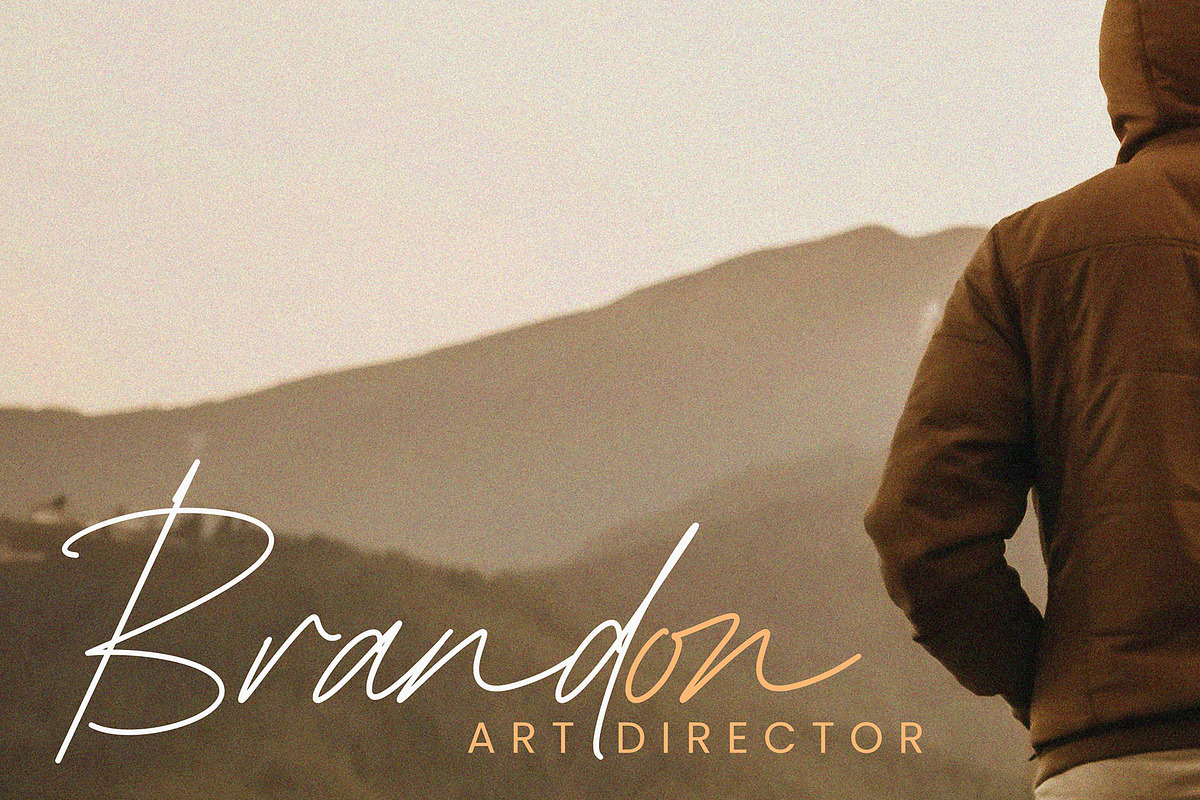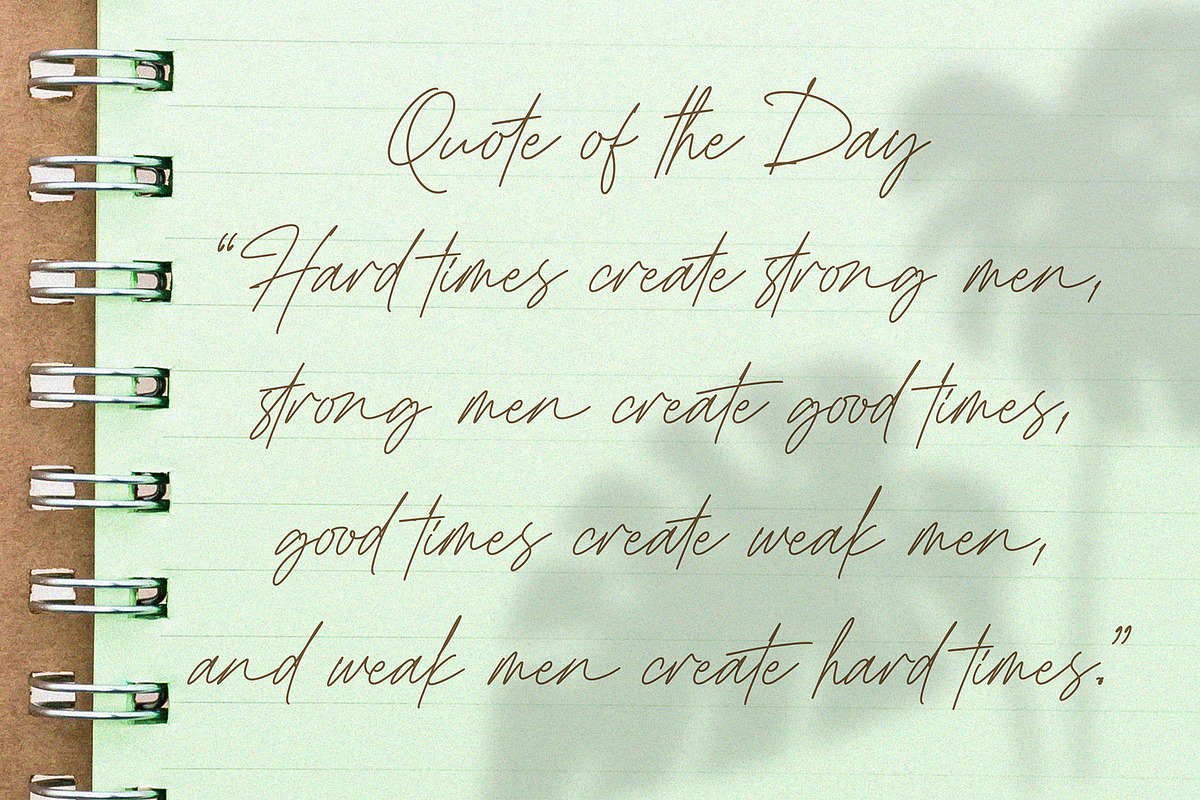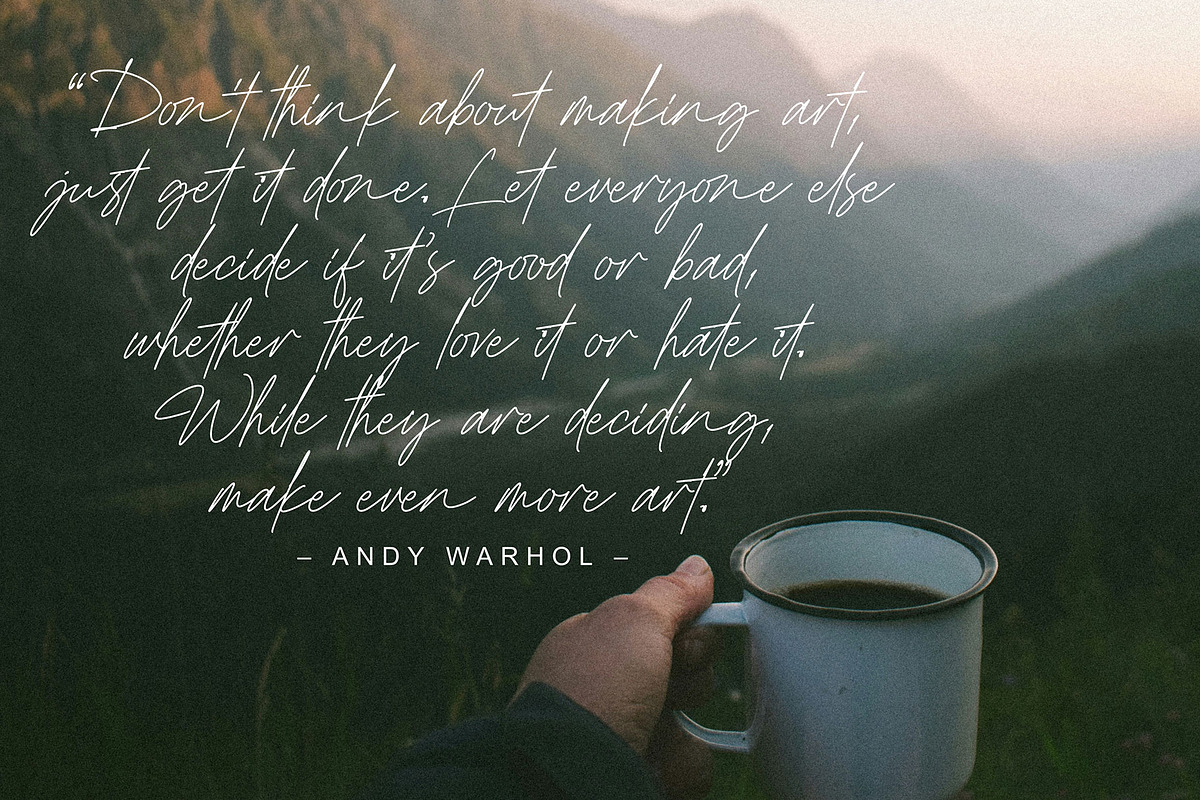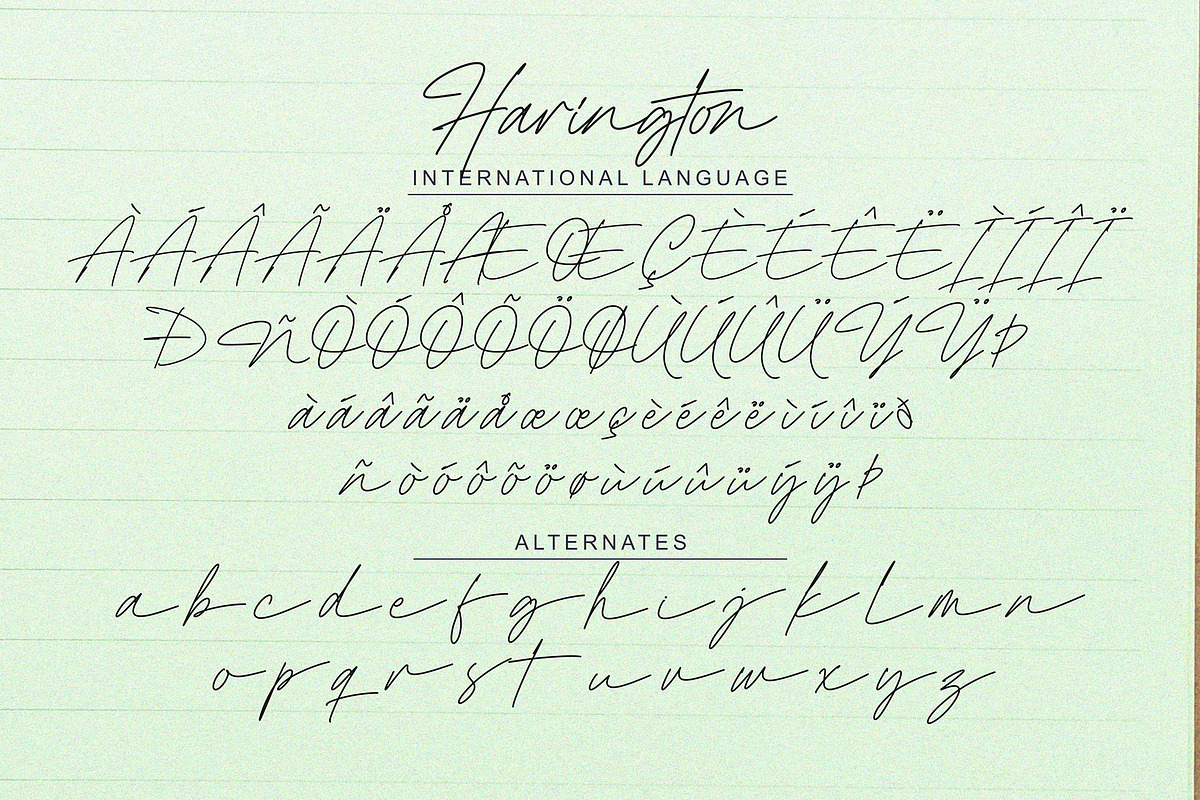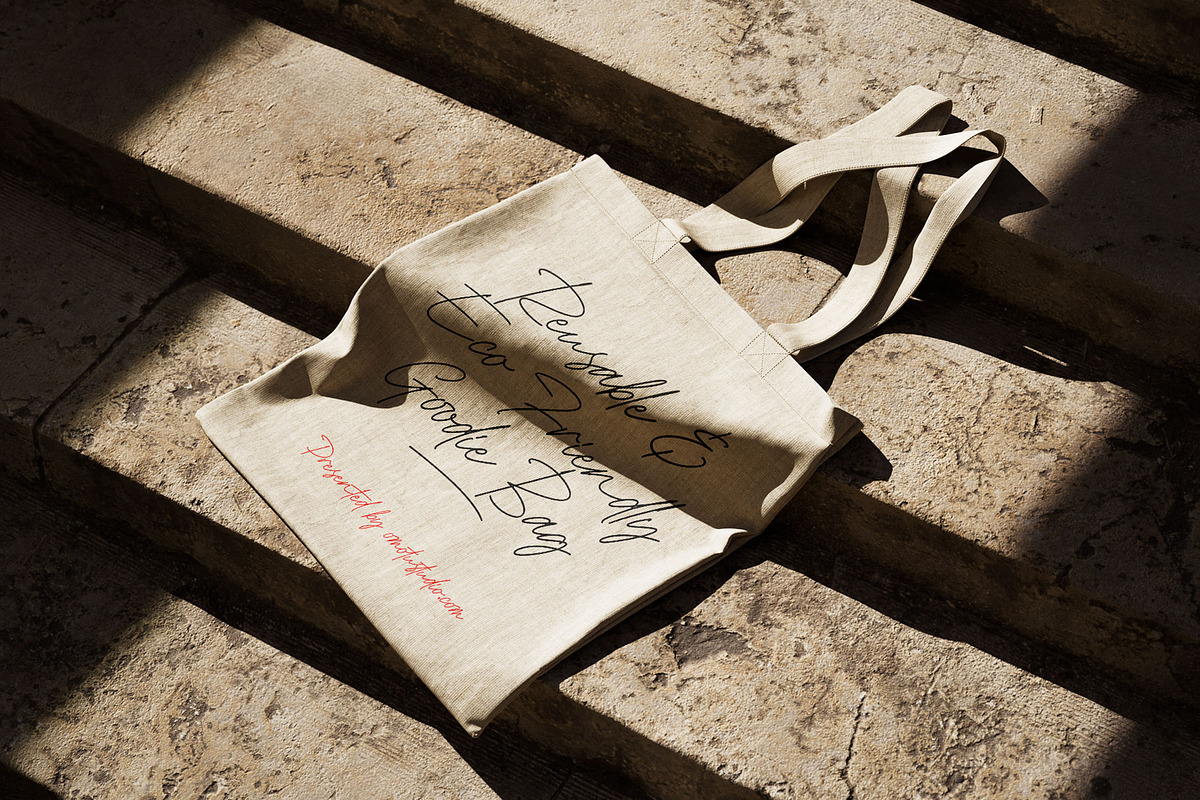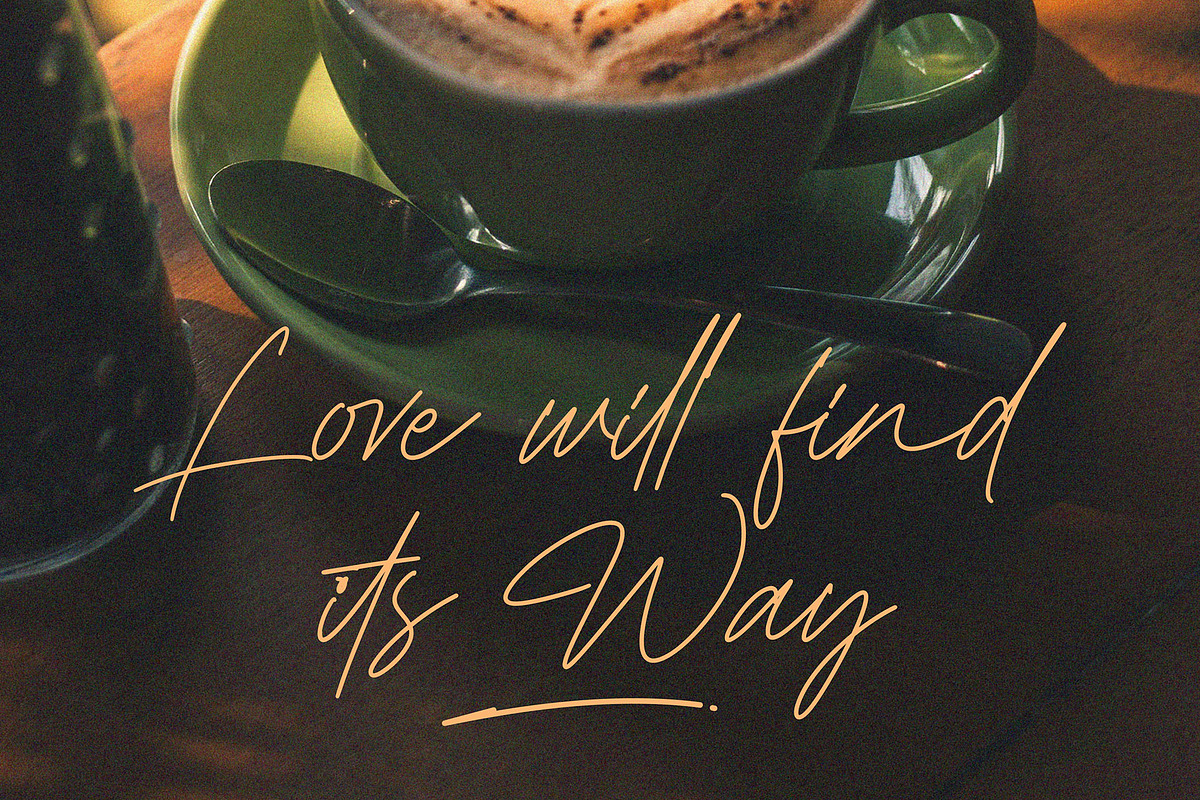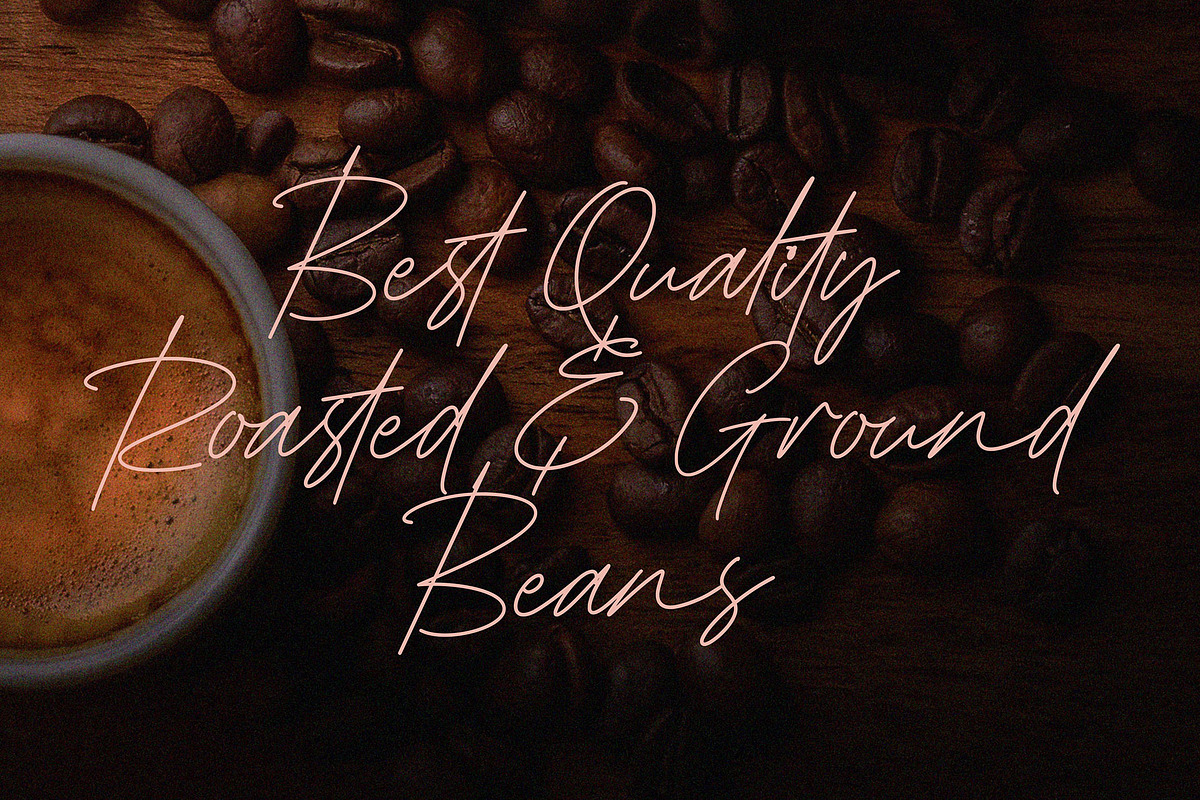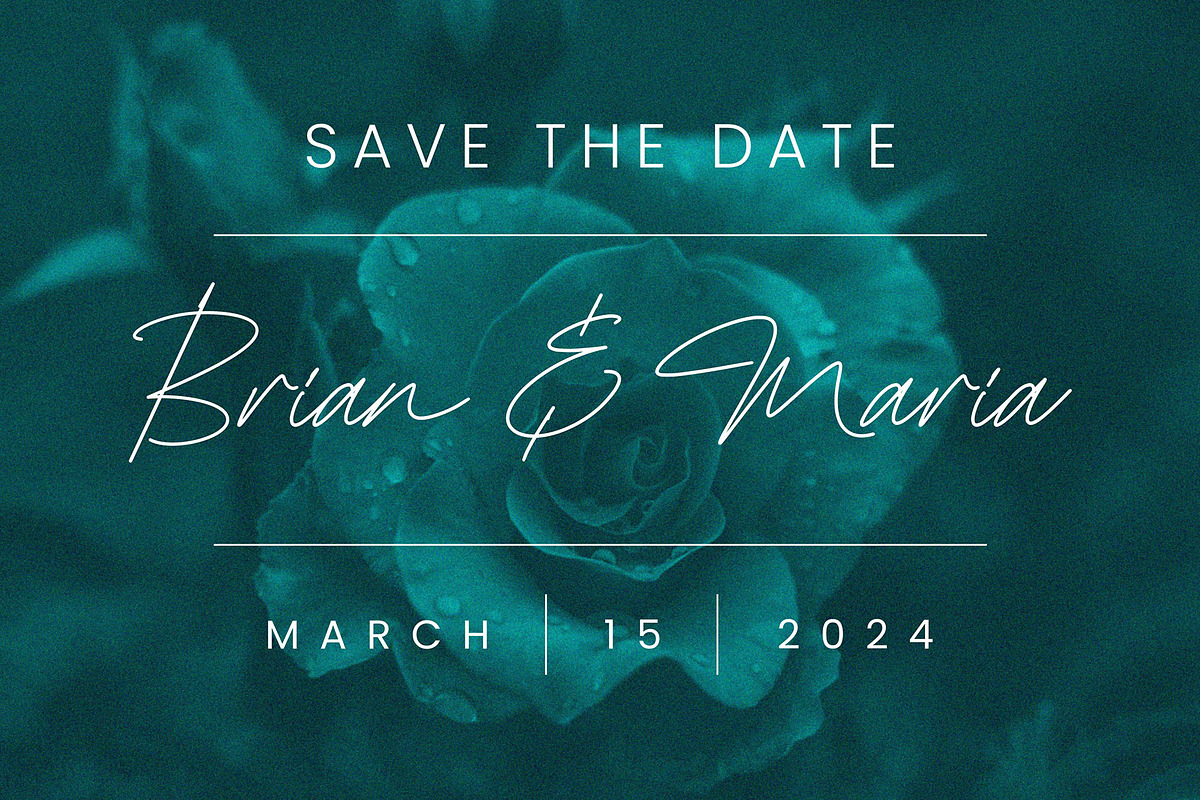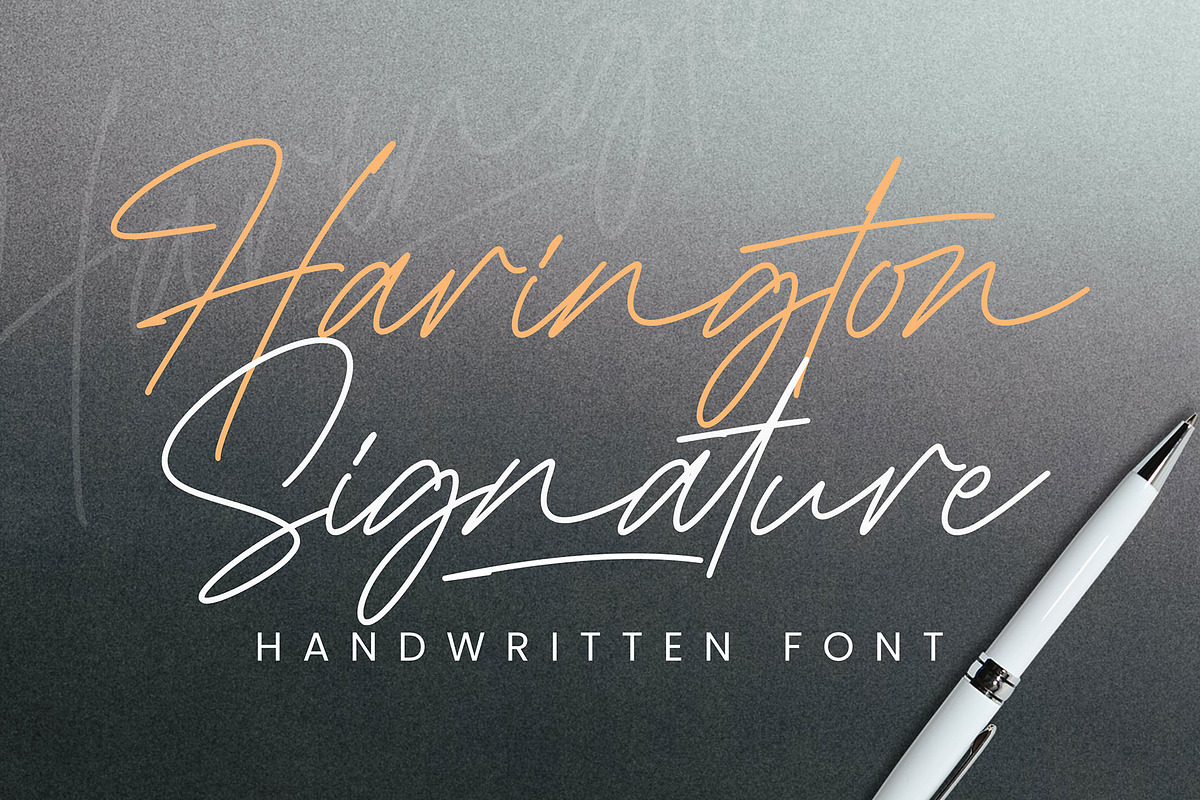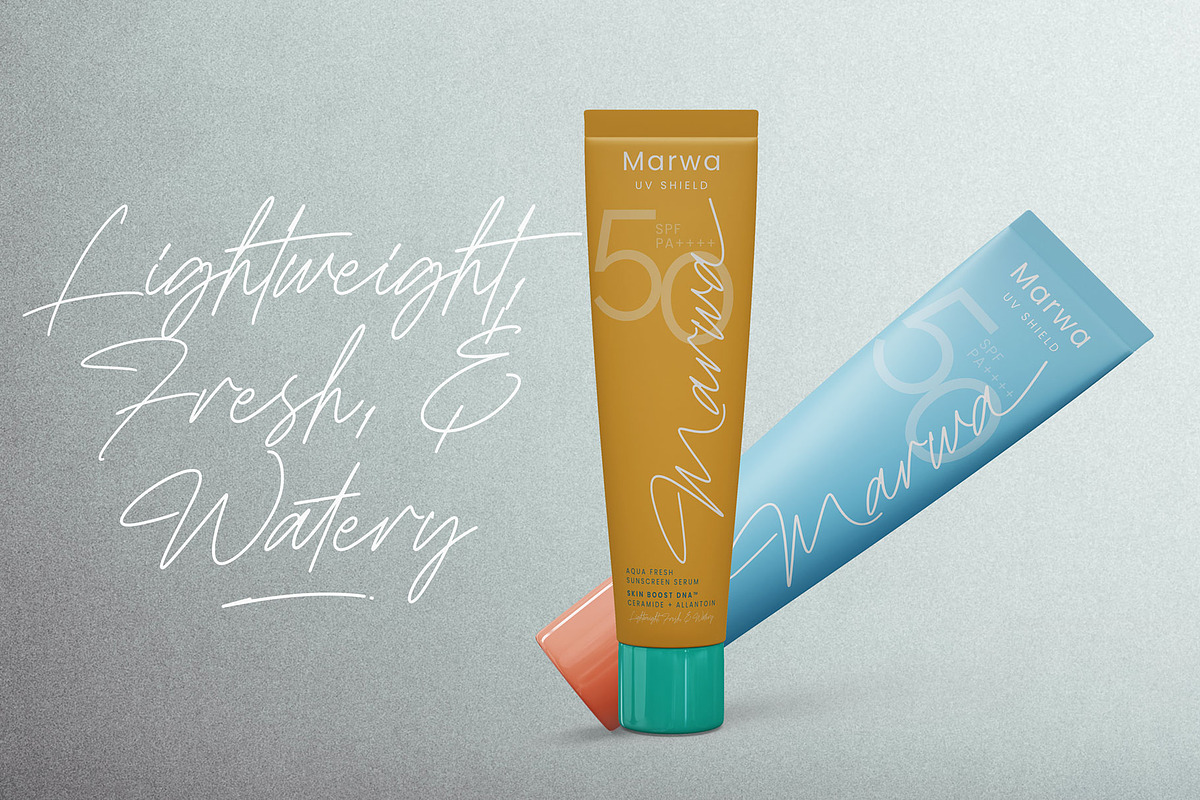
Harington Signature
Harington Signature! A handwritten script brush font. Harington Signature font is suitable for branding, logotype, apparel, T-shirt, business card, product packaging, quotes, flyer, poster, book cover, advertising, etc.
- Features: Uppercase, lowercase, numerals, punctuations, alternates, contextual alternate, and ligatures